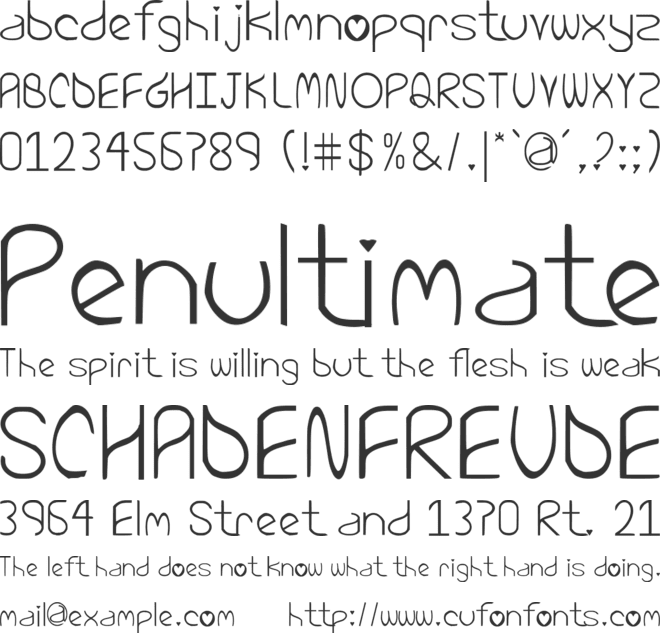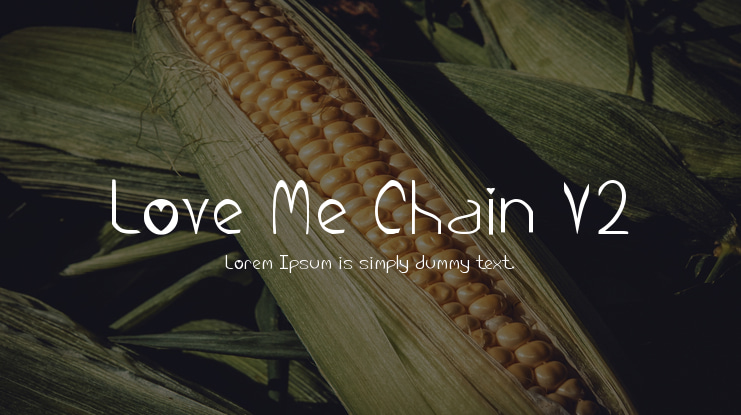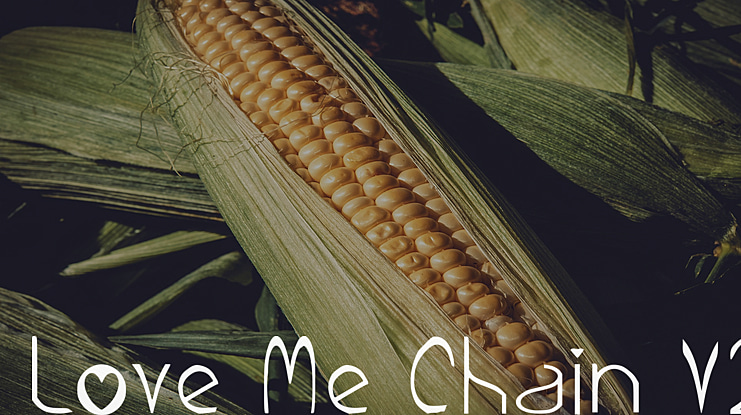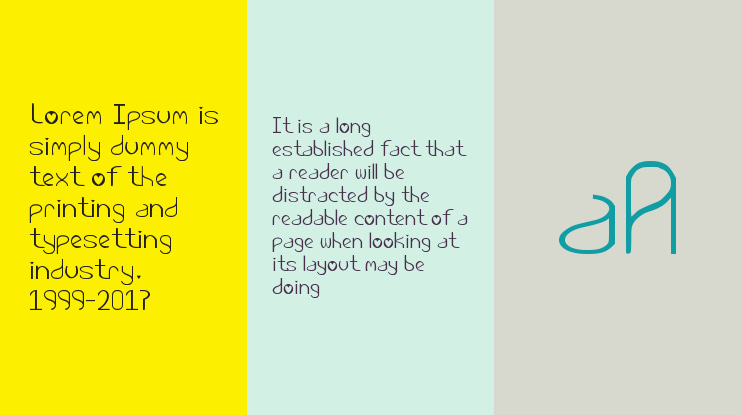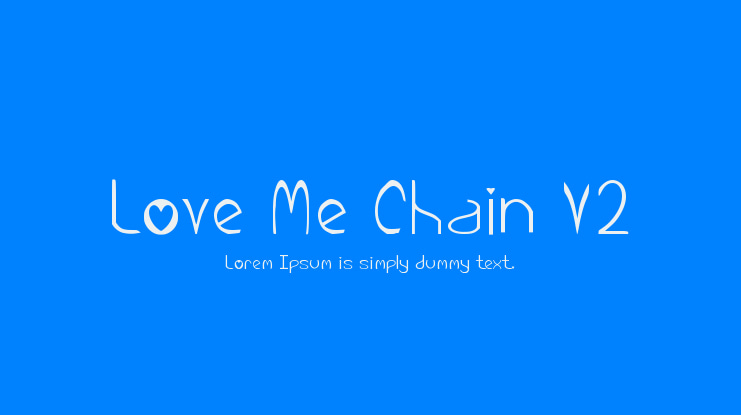
The love me chain name was based on a Sailor Moon Attack performed by Sailor Venus. I have re-created it and revamped it since my initial design. A side note: all characters within this font were created using a heart as a base design. All letters are built using a piece of heart. So they are made with love!